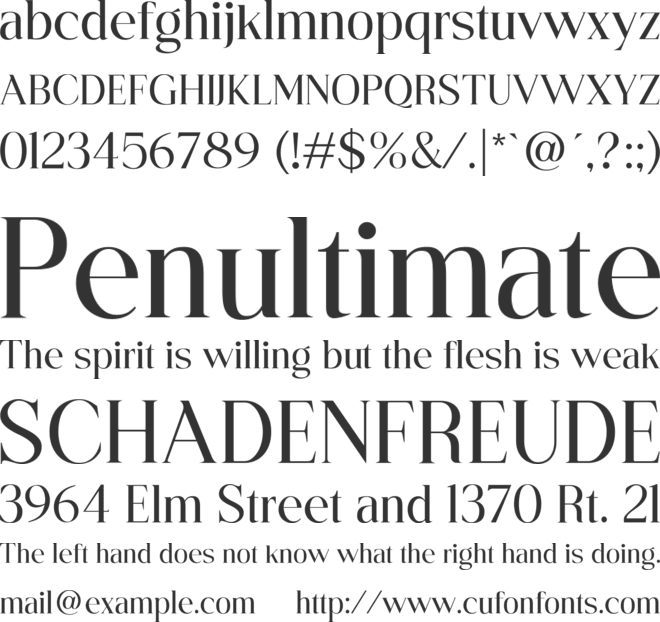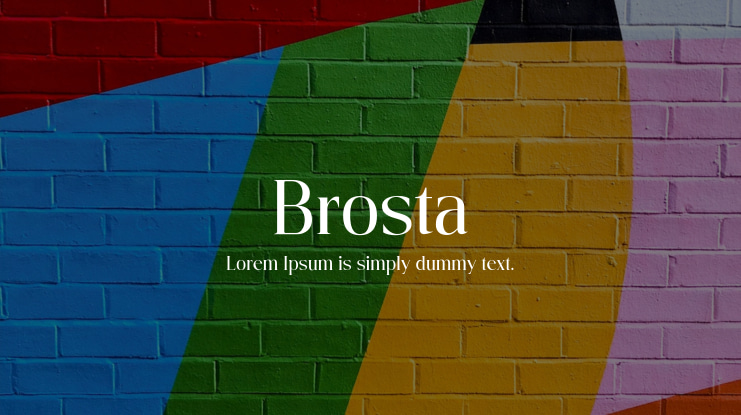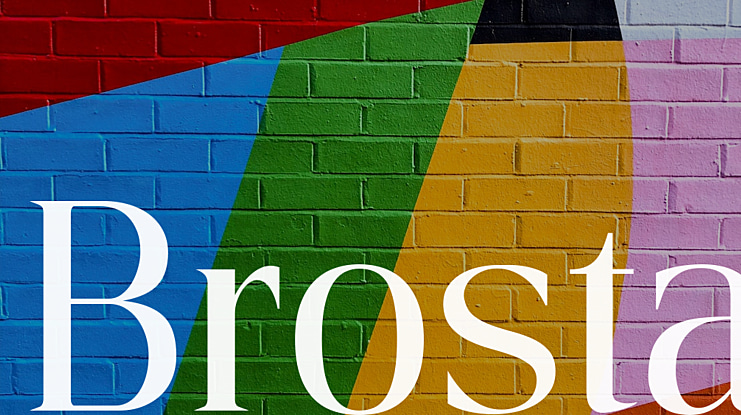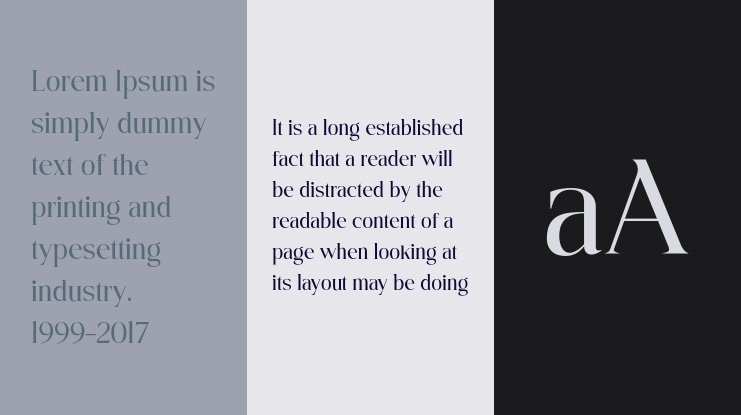
Brosta Font
Brosta Serif Fonts are the font of choice for designers looking to add a touch of sophistication and modernity to their projects. The bold letters create a strong yet minimalistic feel that can make any text stand out.
Classic serif font with a modern twist Ideal for bold headings or simple text needs Creates a clean and minimalist impression Perfect for Digital and Print Projects Looking for a sleek, modern font that still has classic charm? Brosta Serif Fonts! This clean, minimalist option is perfect for everything from headlines to body copy.
Brosta font preview